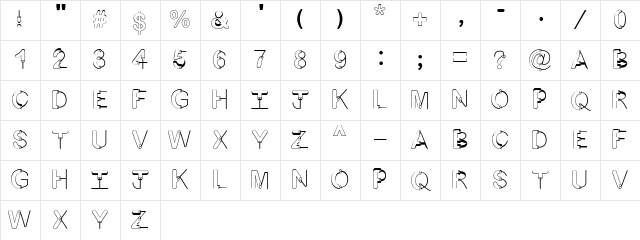
ArtsyFartsy Regular Free Font
ArtsyFartsy Regular
Design Context for ArtsyFartsy
ArtsyFartsy is a composed and adaptable typeface that performs quietly and consistently across a wide range of design contexts.